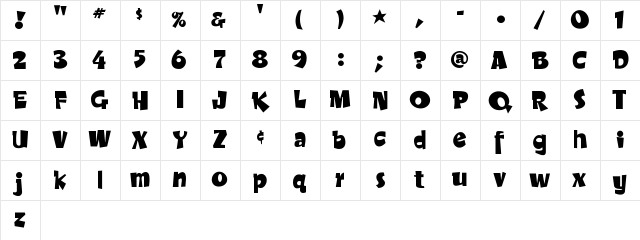
A&S Happy Jack Regular Free Font
A&S Happy Jack Regular
Foundry: SIGNFONTS-Art&Sign studio
Designer: Steve Contreras
Design Context for A&S Happy Jack
A&S Happy Jack is a composed and adaptable typeface that performs quietly and consistently across a wide range of design contexts.
Who designed the A&S Happy Jack Regular font?